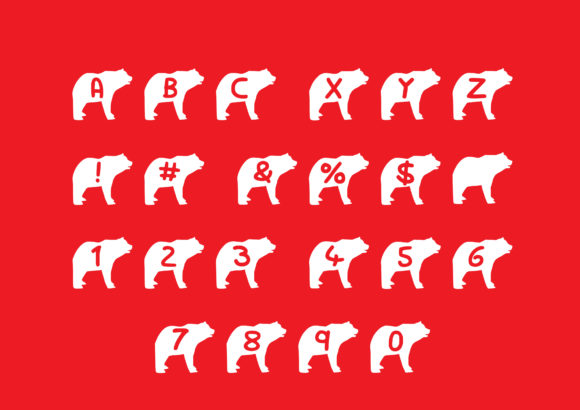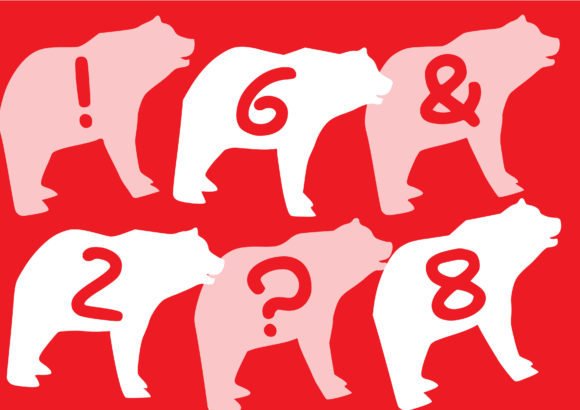
Introduction to Play Bear Font
Play Bear is a cool looking and interesting decorative font, featuring a bear on each character.
Key Features of Play Bear Font